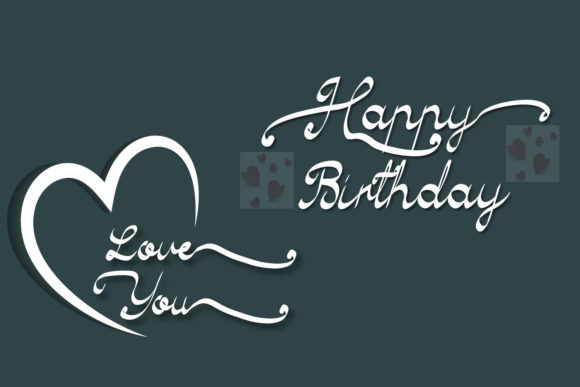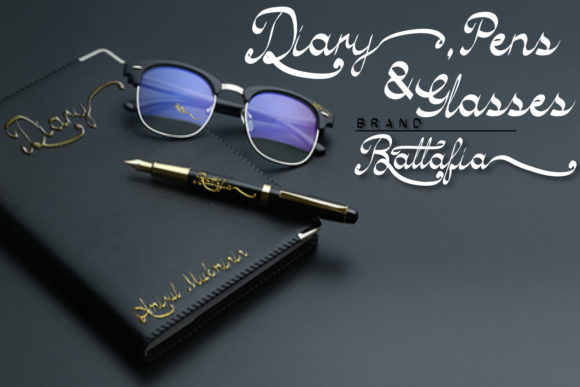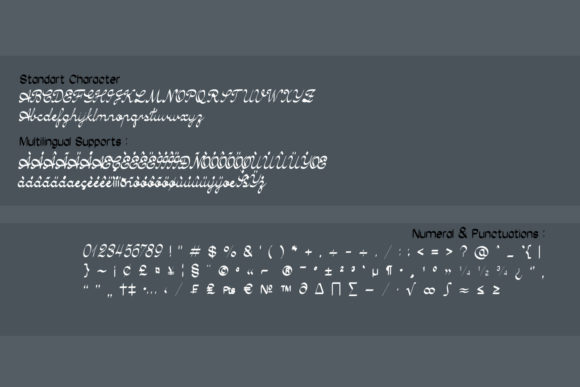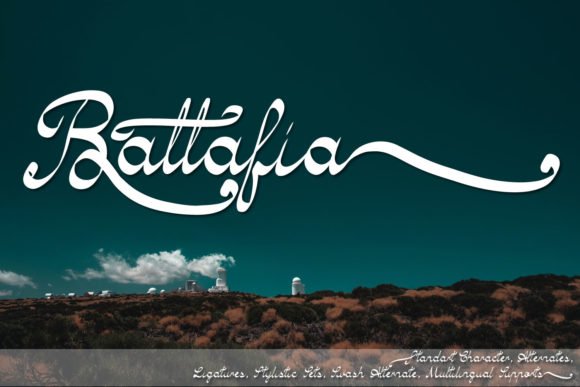
Introduction to Battafia Font
Battafia is a handwritten script font, with an elegant and beautiful look.
It looks stunning on invitations, thank you cards, quotes, greeting cards, logos, business cards and every other design which needs a handwritten touch .
Why Choose Battafia Font?
Battafia Font offers exceptional quality and versatility, making it a valuable addition to your design toolkit. Whether you’re creating for personal projects or commercial use, Battafia Font delivers professional results.